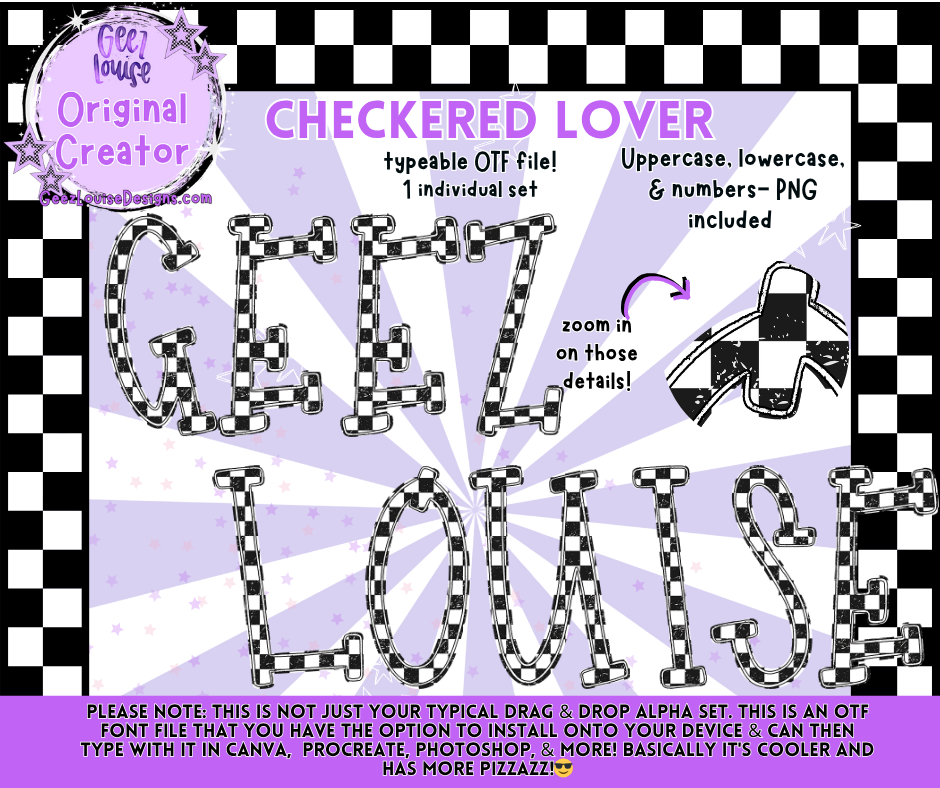
Checkered Lover Alpha | OTF Font + PNG Letter Set
Show your edgy side with the Checkered Lover Alpha!
This typeable OTF font and PNG set brings bold, classic checkered style to your projects — perfect for anyone who loves a mix of retro, punk, and modern design. Use it to create standout text that screams personality while keeping that clean Geezy flair.
Not your average alpha set — this is a fully typeable OTF font that combines the classic checkerboard vibe with modern versatility. Fast, easy, and full of Geezy attitude.